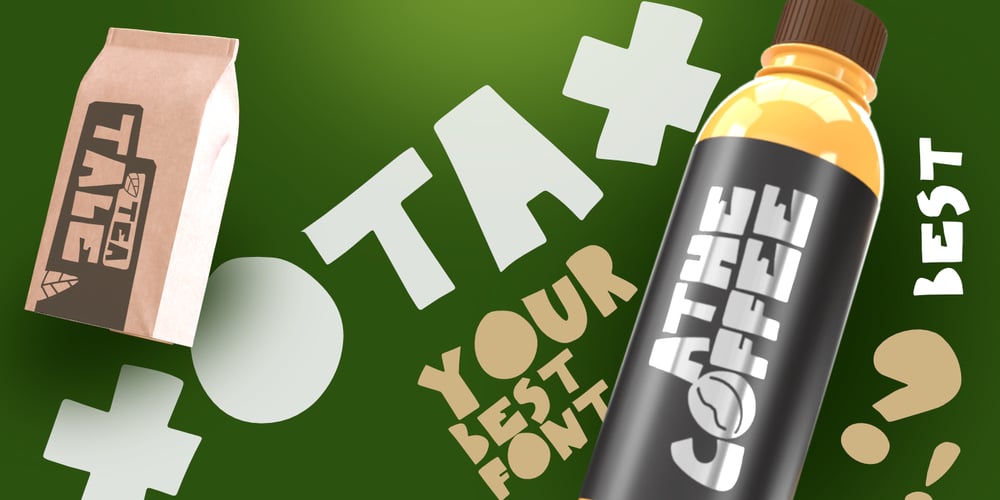
Xotax Font Family was designed by Wahyu Eka Prasetya, Afiat Sukmaraga and published by Hati. Xotax contains 1 styles and family package options. This typeface is designed with an industrialist style, making it perfect for projects that require a strong, modern, and impactful design. The sharp corners provide a crisp and precise look, while the overall thickness of the strokes adds to the font’s robust and solid character. Ideal for branding, logos, posters, and packaging, this font excels in creating a tough and powerful visual identity.